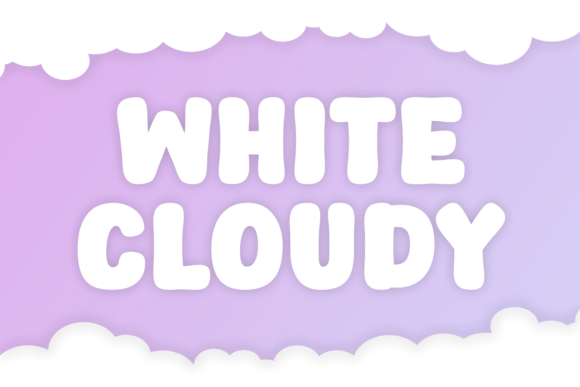
White Cloudy: A Bold & Airy Display Font
In the crowded landscape of digital aesthetics, finding a typeface that balances structural integrity with whimsical charm is rare. Discover White Cloudy, a captivating fusion of bold strength and airy elegance in the form of a display font that instantly commands attention. This particular typeface effortlessly oscillates between playful and fancy to downright solid, illustrating its remarkable versatility for modern graphic design projects.
The Versatility of Modern Typography
Typography serves as the backbone of visual communication, often dictating the tone before a single image is viewed. White Cloudy stands out because it defies the rigid categorization often found in standard font libraries. Comprising seven unique variants, this font family boasts a universal appeal that extends beyond linguistic barriers, making it an invaluable asset for global brands. Whether you are crafting a minimalist logo or a vibrant poster, the ability to shift from lighthearted to authoritative within a single design system is a powerful tool.
For designers navigating complex brand identity challenges, having a font that resonates with a unique charisma brings an extra layer of warmth to your projects. It bridges the gap between professional presentation and approachable creativity. From apparel design to eye-catching posters, White Cloudy leaves a unique trail of charm, making an indelible mark on your audience by ensuring your message is not just read, but felt.
Strategic Applications Across Media
The true value of a creative asset lies in its adaptability across various mediums. Here is how White Cloudy can elevate specific areas of your design workflow:
- Branding and Logo Design: Its distinct curves and sturdy weight make it ideal for creating memorable logos that stand out in competitive markets while remaining scalable for business cards or billboards.
- Social Media Graphics: In the fast-paced world of digital marketing, headlines need to stop the scroll. The playful nature of this font captures attention quickly, improving engagement rates on platforms like Instagram and TikTok.
- Editorial and Web Design: When used for section headers or magazine titles, it establishes a clear visual hierarchy, guiding the reader's eye through content without overwhelming the layout.
- Packaging and Merchandise: Perfect for school events, product branding, or any design requiring a dash of affection, this font works beautifully on t-shirts, packaging labels, and promotional materials.
Enhancing Visual Hierarchy and User Experience
Effective UI design and UX design rely heavily on readability and aesthetic harmony. While White Cloudy is primarily a display font, its variants offer enough flexibility to be used sparingly in interfaces where personality is key. However, designers must exercise caution regarding legibility at small sizes. Pairing this bold typeface with a clean, neutral sans-serif for body text creates a balanced composition that enhances user experience without sacrificing style.
When integrating White Cloudy into your color palette, consider high-contrast combinations to maximize impact. Deep navy, charcoal, or even stark black backgrounds allow the white and light tones of the font to pop, reinforcing its "cloudy" yet solid aesthetic. Conversely, using it on soft pastels can amplify its friendly, approachable vibe, making it perfect for lifestyle brands or educational institutions.
Tips for Successful Implementation
To get the most out of this versatile typeface, consider these practical recommendations:
- Maintain Consistency: Stick to one or two variants per project to avoid visual clutter and ensure a cohesive brand identity.
- Respect Negative Space: Allow ample breathing room around the letters. The intricate details of the font require space to shine and maintain their elegant structure.
- Test Scalability: Always preview your designs at different sizes to ensure the font remains impactful whether emblazoned on a t-shirt or showcased as a tiny app icon.
- Align with Audience Expectations: Ensure the playful nature of the font aligns with your brand voice. It is excellent for creative industries but may need careful pairing for more formal corporate communications.
Let White Cloudy be a vibrant tool in your creative suite, elevating your ideas from ordinary to extraordinary. Whether you are working on packaging design, print design, or digital products, the choice of typography significantly influences how your message is perceived. By selecting assets that combine functionality with artistic flair, you ensure your designs speak volumes. Ultimately, thoughtful design choices rooted in quality creative assets improve both aesthetics and communication, turning simple concepts into compelling visual stories that resonate deeply with your target audience.